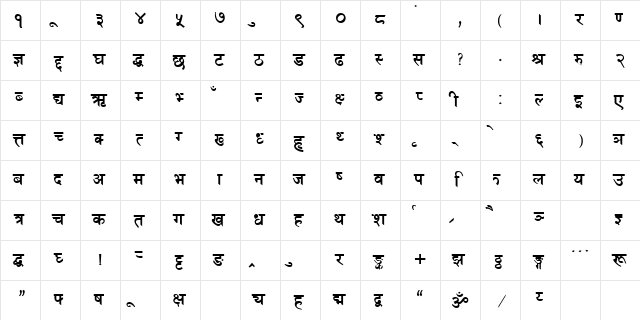
Himalli Regular
Design Context for Himalli Typeface
Himalli takes a measured approach to typography — its balanced proportions and neutral character make it a reliable workhorse for both digital and print work.